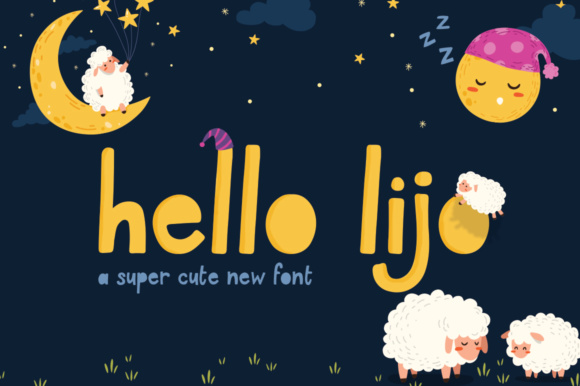
Embrace the charm and whimsy of Hello Lijo, an enchanting display font born from the imagination of Salt and Pepper Fonts. Handcrafted with a child-like innocence, this font exudes an aura of playfulness and creativity that will captivate your designs. Its distinctive characters dance across the screen, each letter a unique expression of joy and wonder. Let Hello Lijo sprinkle its magic into your projects and transport your audience to a world of imagination and delight.
Dive into a world of creative possibilities with Hello Lijo, a font that empowers you to tell stories, express emotions, and craft designs that resonate with your audience. With its playful personality and boundless versatility, Hello Lijo effortlessly adapts to a myriad of design styles, from whimsical invitations and playful posters to heartwarming greetings and captivating social media posts. Let your creativity soar as Hello Lijo becomes your trusted companion in creating designs that leave a lasting impression.
Indulge in the beauty of Hello Lijo, a font that echoes the innocence and wonder of childhood. Its hand-drawn characters evoke a sense of nostalgia, reminding you of carefree days filled with laughter and imagination. Use Hello Lijo to craft designs that evoke a sense of nostalgia and heartwarming charm. Create invitations that transport guests to a magical realm, design greeting cards that warm hearts, and craft social media posts that spark joy and laughter. Let Hello Lijo add a touch of whimsy and enchantment to your designs.
Experience the joy of Hello Lijo, a font that brings a smile to your face. Its cheerful strokes and playful curves exude positivity and happiness, creating designs that radiate warmth and cheer. Use Hello Lijo to create designs that uplift spirits, inspire creativity, and spread joy. Design posters that brighten up any room, create t-shirts that spark conversations, and craft social media posts that bring a smile to everyone's face. Let Hello Lijo infuse your designs with an infectious sense of happiness and optimism.